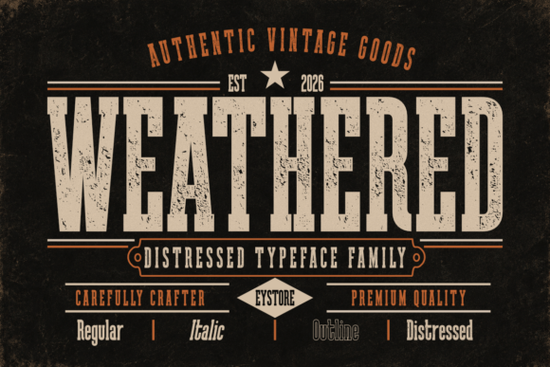
Weathered is a vintage distressed typeface that brings a unique, aged look to any design project. If you're looking for a font that adds character and authenticity to your work, this one might be just what you need. Designed with a bold condensed structure and rich weathered texture, Weathered captures the charm of old prints and timeworn materials. It’s ideal for logos, apparel designs, packaging, labels, posters, and more.
Whether you're working on a rustic workshop aesthetic, retro advertising, or heritage products, Weathered offers a strong visual identity. The font family includes four styles Regular, Italic, Outline, and Distressed each providing different ways to express your creative vision. This versatility makes it a great choice for designers who want to experiment with different looks without switching fonts.
If you’re into vintage themes or want to add a handcrafted feel to your designs, Weathered can help you achieve that. Its weathered texture gives the impression of something that has been used and loved over time. This kind of detail can make your projects stand out and feel more authentic. It’s especially useful for branding, where consistency and character are important.
What Makes Weathered Stand Out?
One of the key features of Weathered is its ability to blend modern design with a classic, aged appearance. Unlike other fonts that may look too clean or artificial, Weathered has a natural, worn look that feels real. This is achieved through its textured strokes and irregular edges, which mimic the effects of time and use.
The font works well in both digital and print formats, making it a flexible choice for various applications. Whether you're creating a logo for a clothing brand or designing a poster for an event, Weathered can add a layer of depth and history to your work. Its bold and condensed structure also makes it easy to read, even at smaller sizes.
How to Use Weathered in Your Projects
There are many ways to incorporate Weathered into your designs. For example, you could pair the Regular style with the Outline version to create a layered effect. The Italic style adds a subtle touch of elegance, while the Distressed option gives a more rugged, worn look. Experimenting with these combinations can help you find the perfect balance for your project.
For branding purposes, using Weathered in a logo can instantly convey a sense of tradition and craftsmanship. It’s also great for packaging, where a vintage feel can make your product more appealing. If you're selling merchandise online, adding this font to your designs can help you stand out in a crowded market.
Best Practices for Using Weathered
To get the most out of Weathered, consider the following tips. First, use it in moderation. While the font has a strong presence, it can overwhelm a design if overused. Second, test it in different sizes and contexts to see how it performs. Third, pair it with simpler fonts to create contrast and balance.
When working on a project, start by experimenting with one style and gradually introduce others as needed. This approach helps maintain clarity and readability. Also, keep in mind the purpose of your design whether it's for a logo, poster, or packaging and choose the style that best fits the message you want to convey.
If you're new to using distressed fonts, take time to understand how they interact with other elements in your design. This will help you make informed decisions and achieve professional results. With practice, you’ll learn how to use Weathered effectively in a variety of settings.
- Use Weathered for logos, packaging, and branding projects.
- Experiment with different styles to find the right look.
- Pair it with simpler fonts for contrast and balance.
- Test it in various sizes and formats before finalizing your design.